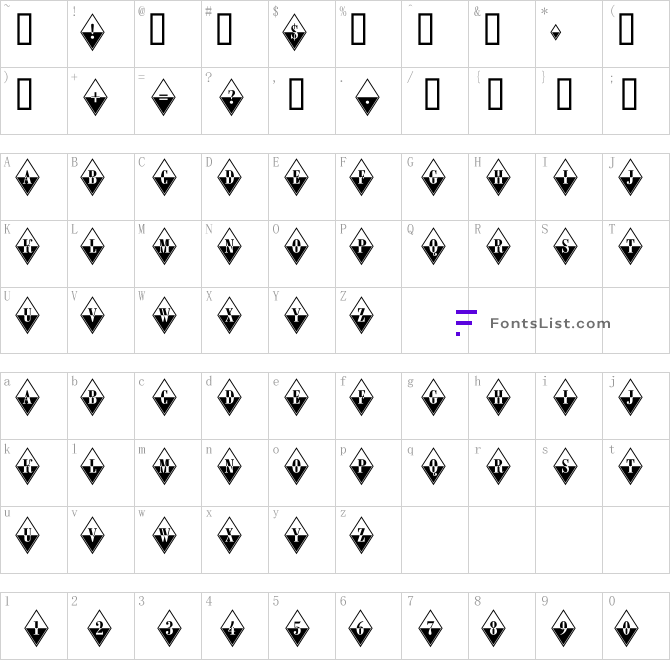
- Font Name:a_RombyB&W
a_RombyB-W.ttf is a very beautiful artistic font, a_RombyB-W.ttf is widely used in the design and printing of various books and pictures,a_RombyB-W.ttf has a strong visual impact,a_RombyB-W.ttf is a commonly used font in newspapers, magazines and books, and is used in posters, e-commerce Poster design, store design, logo design, font design and other fields.a_RombyB-W.